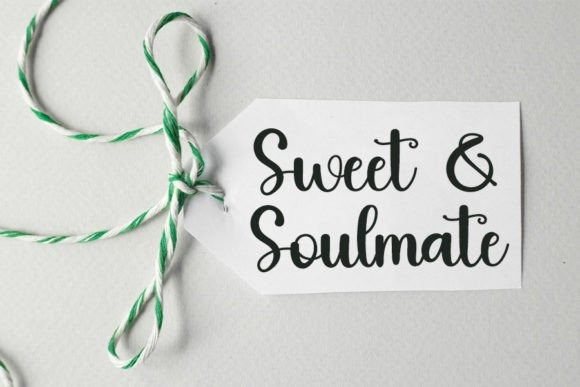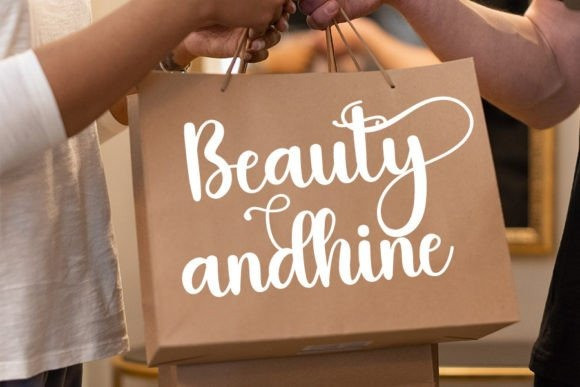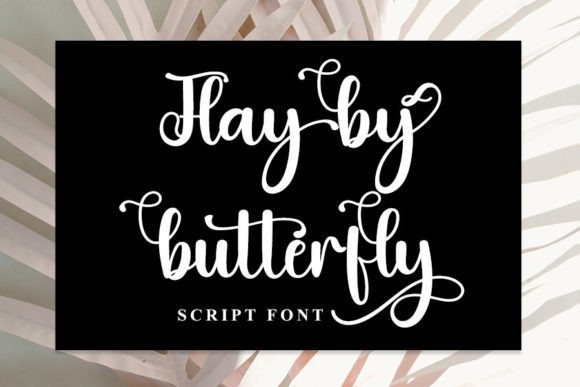
Flay By Butterfly Font
Flay By Butterfly Font is a trendy handwritten font with a contemporary atmosphere and impeccable form, inspired by a timeless classic calligraphy. It will add elegance and class to any of your design projects. This font can be used to write various kinds of products according to the aspect of each need.